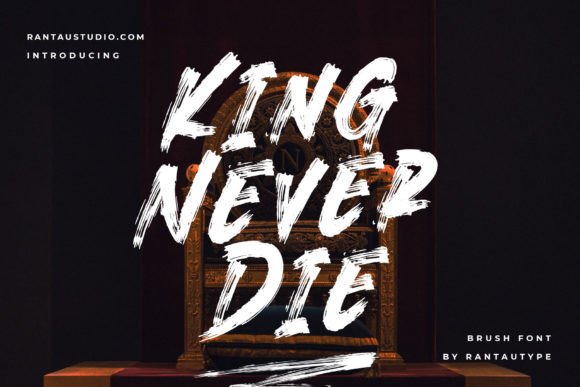
Unleash your creativity with Kingneverdie Font, a mesmerizing and distinctive script font family, finely crafted by RantauType to meet your diverse design needs. This extraordinary font exudes a captivating fusion of modernity, readability, style, and strength, making it an ideal choice for a wide range of projects, from casual to professional.
Step into a world of captivating designs with Kingneverdie Font. Its unique combination of sleek lines, bold strokes, and smooth curves adds a touch of elegance and sophistication to your creations. Whether you're crafting eye-catching watermarks, designing captivating logos, or creating inspiring quotes, this font will elevate your designs to new heights.
With Kingneverdie Font, your imagination is the only limit. Let your creativity flow freely as you explore the endless possibilities. Dive into a realm of visual storytelling, where your designs come alive with personality and charm. Unlock your true potential as a designer and embark on a journey of artistic expression like never before.